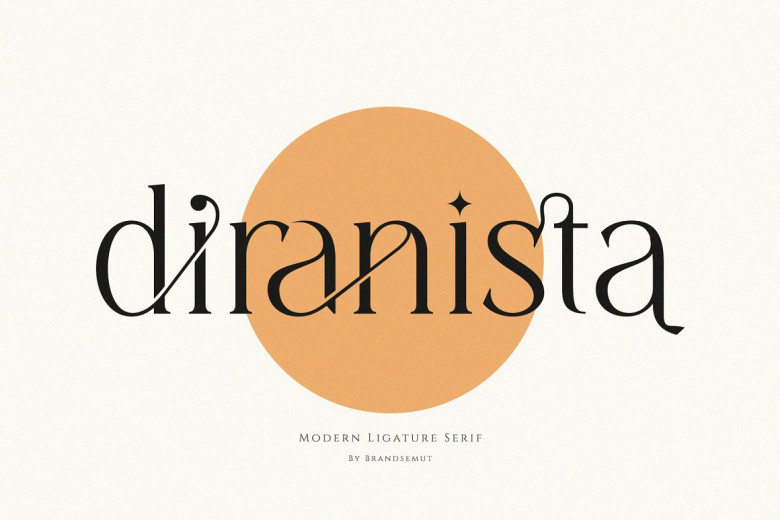
Diranista Font
Diranista Font is a sophisticated yet elegant serif typeface. Perfect for magazines, logos and social media use. Ready-matched and ready for use on any next project! Looking for some elegant flair that brings contemporary chic style into their designs? Well this font was created just for that purpose!
Diranista Ligature Serif Font